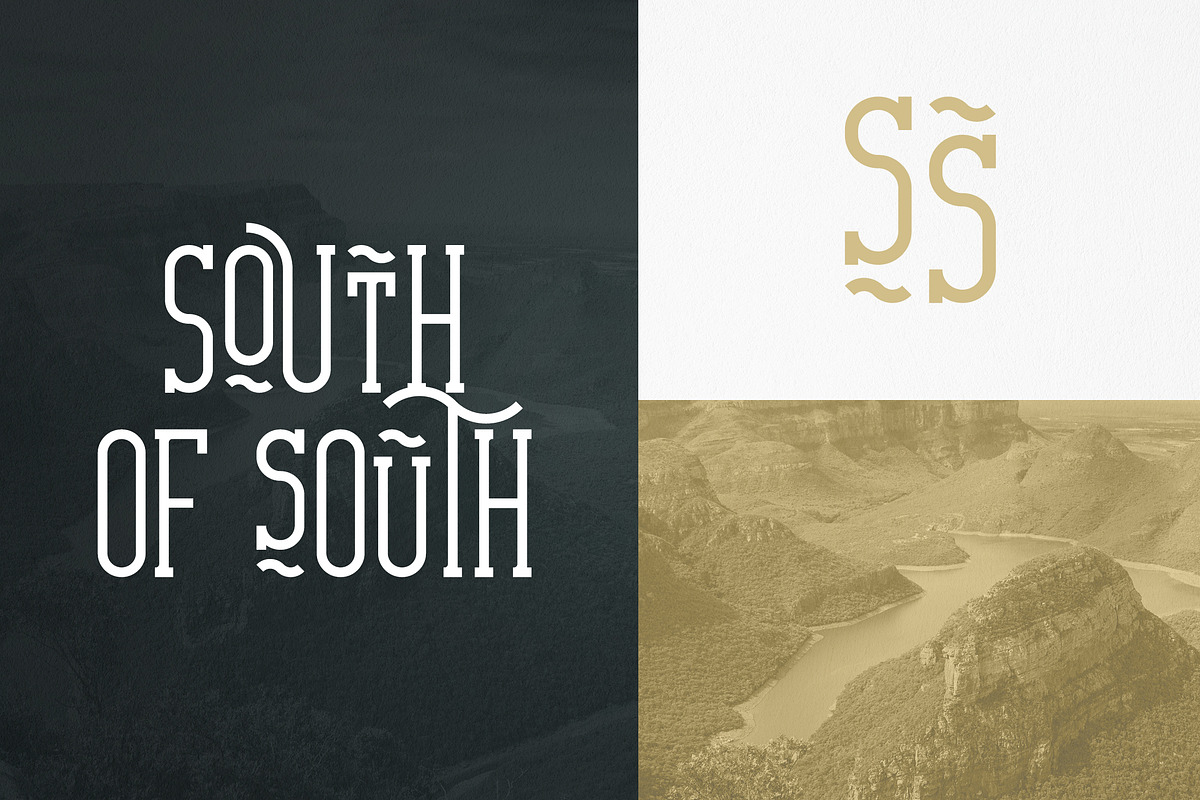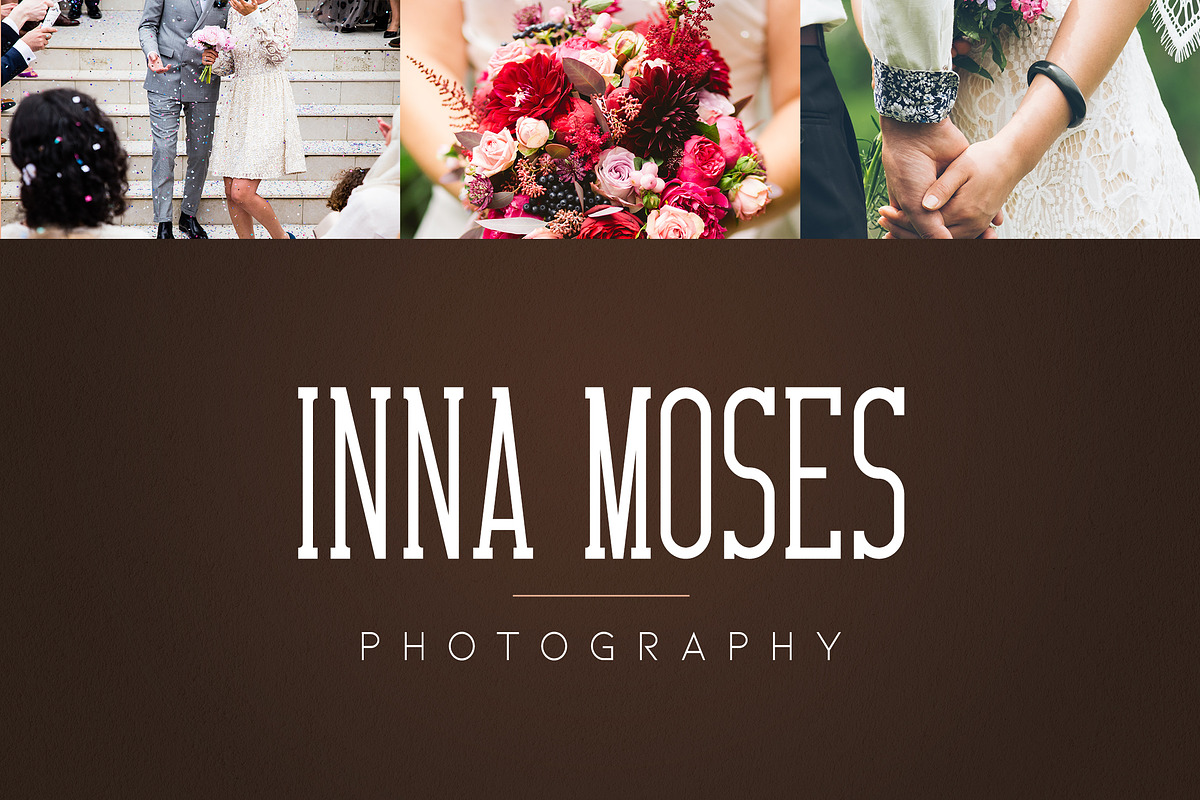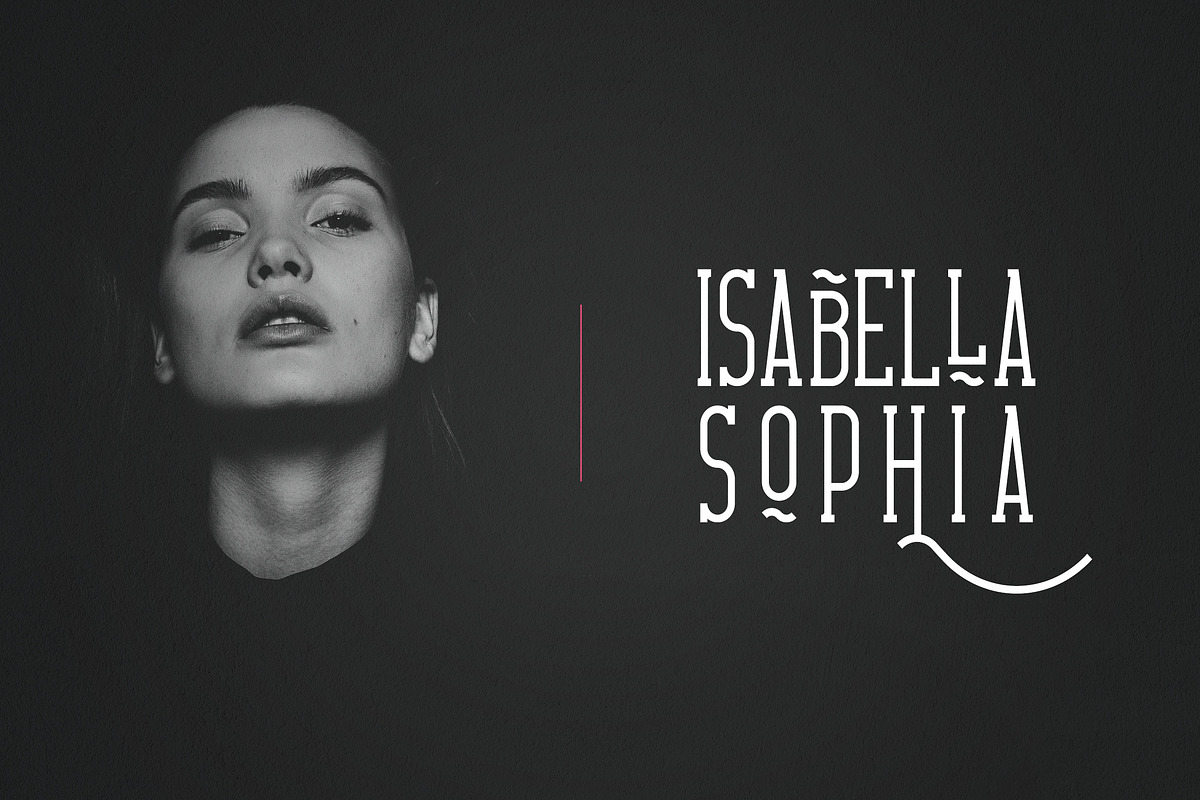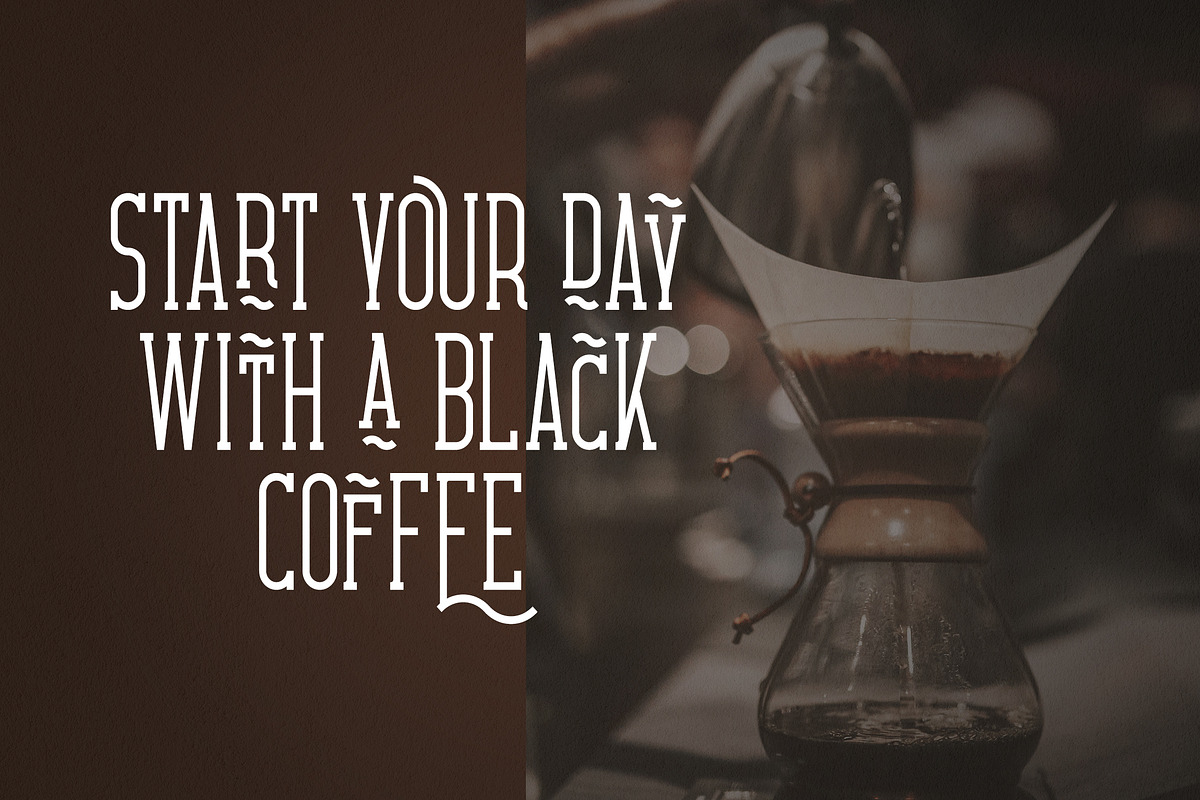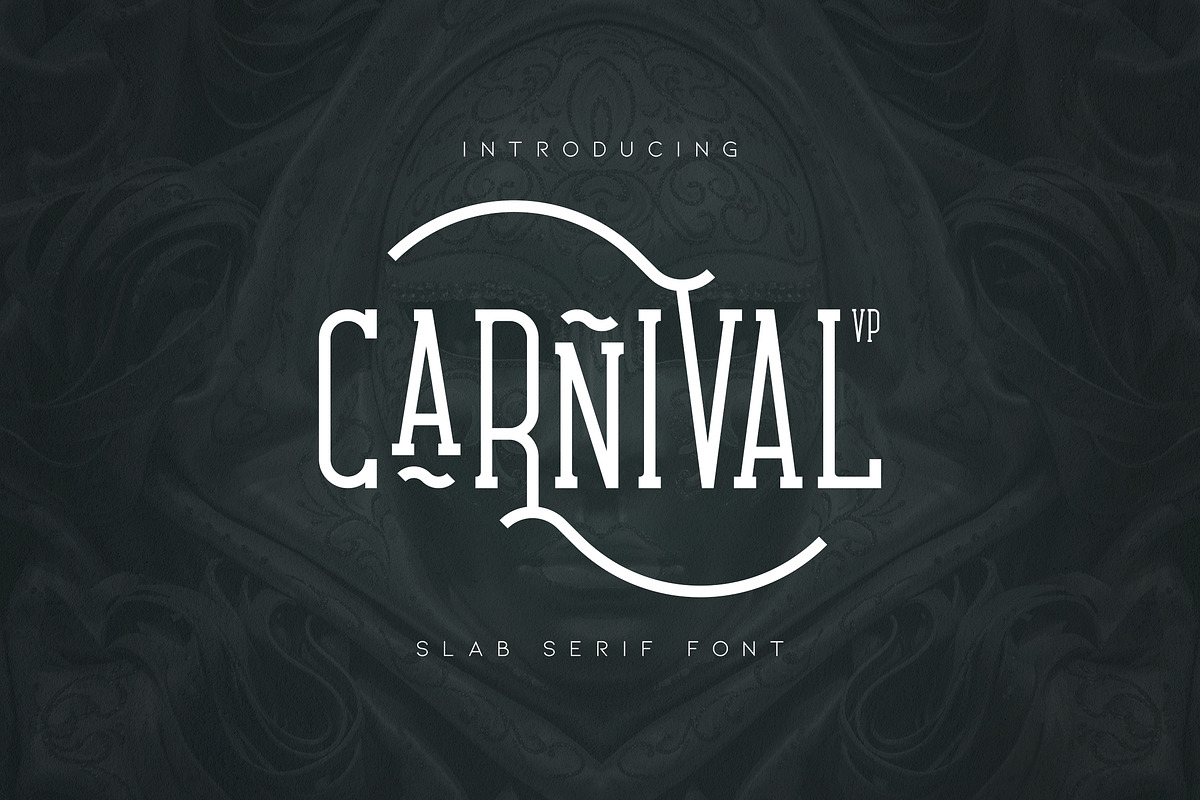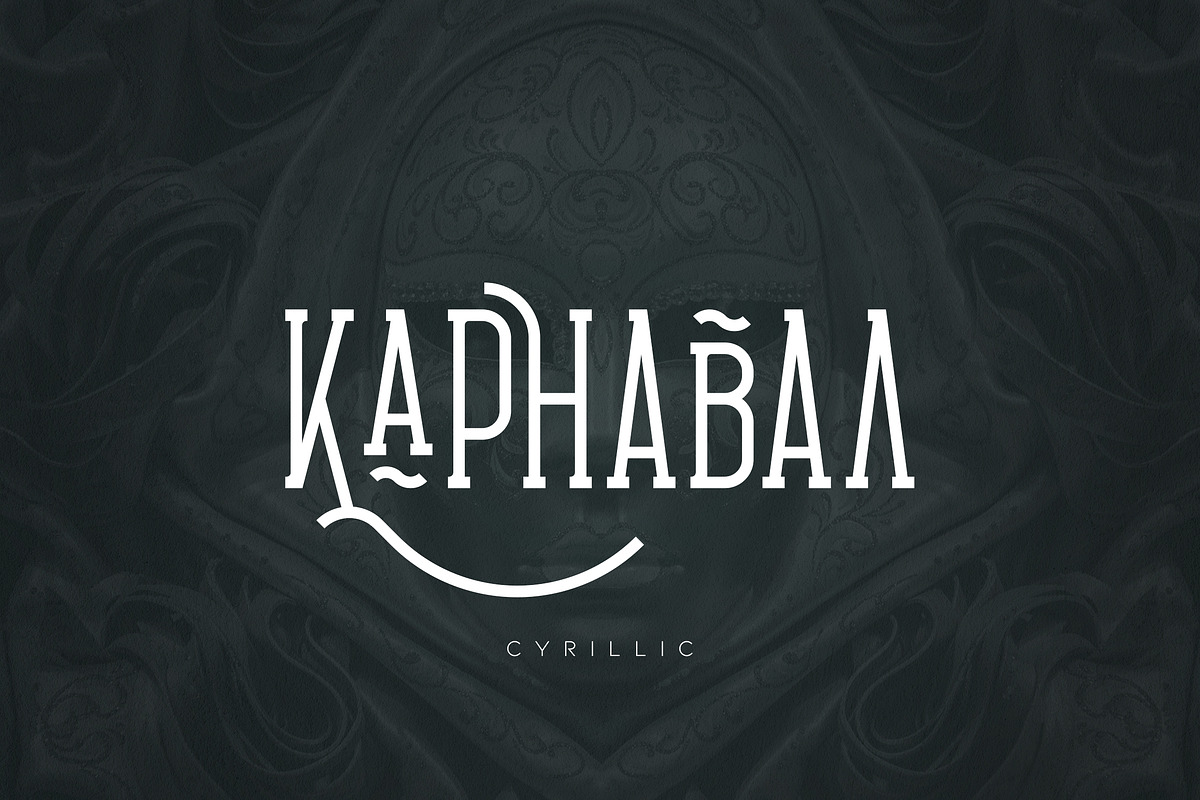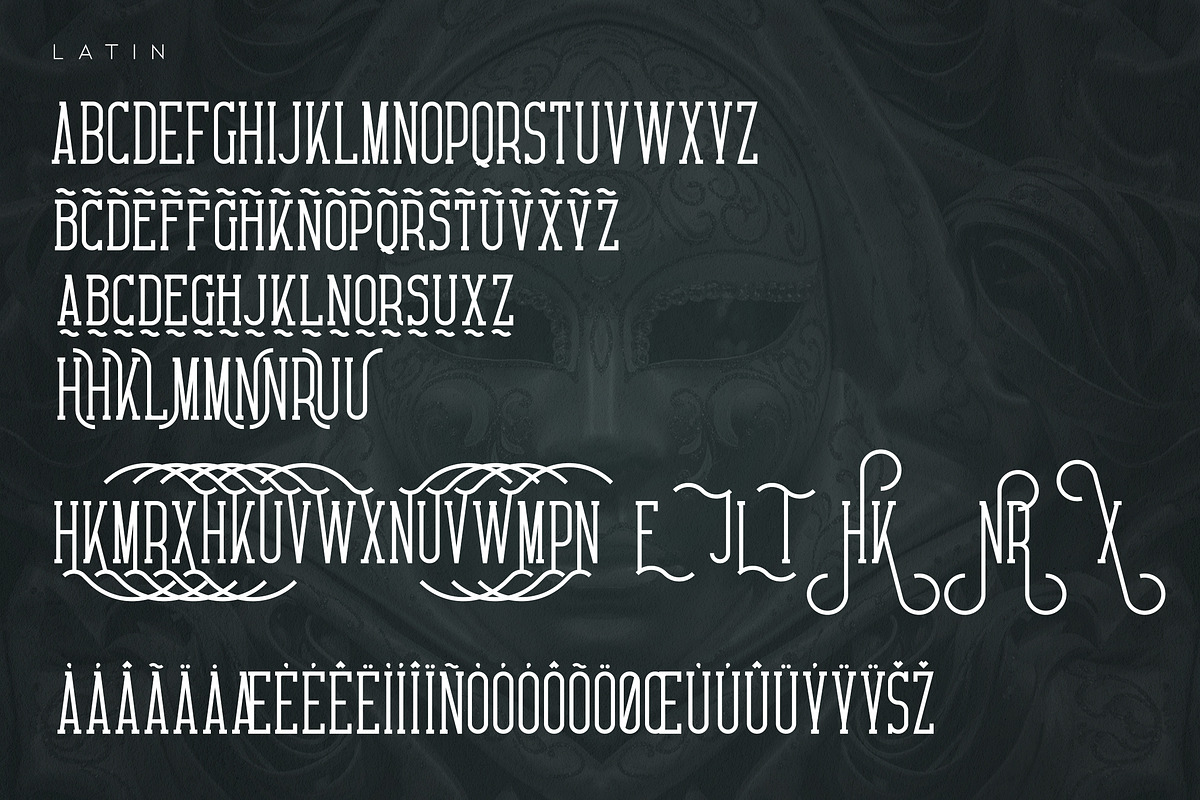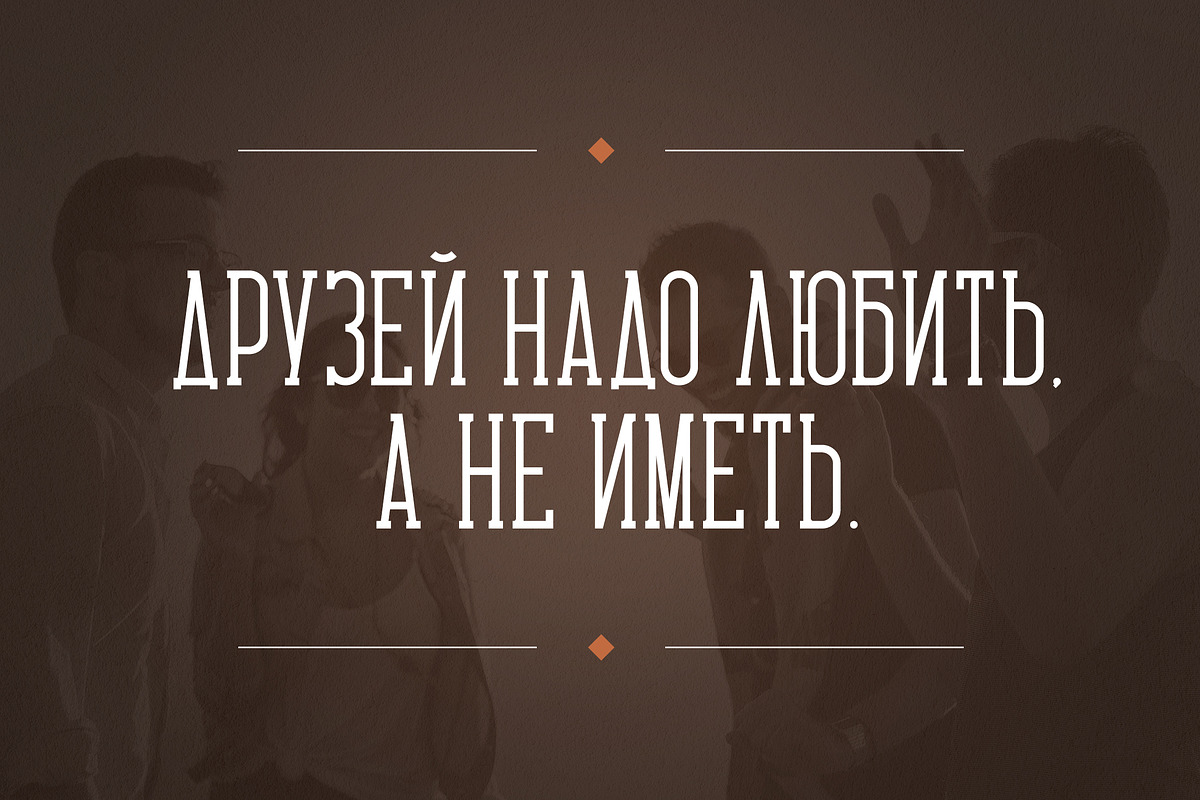
Carnival VP Slab - Latin & Cyrillic
Introducing Carnival VP slab serif font - Latin & Cyrillic
Carnival is long, clean font with latin and Cyrillic support, tons of alternate glyphs, and multilingual support. It's a very versatile font that works great in large and small sizes.
Carnival is perfect for branding projects, home-ware designs, product packaging, magazine headers - or simply as a stylish text overlay to any background image.
Uppercase, numeral,punctuation & Symbol
Cyrillic support - Russian, Ukrainian, Bulgarian and more